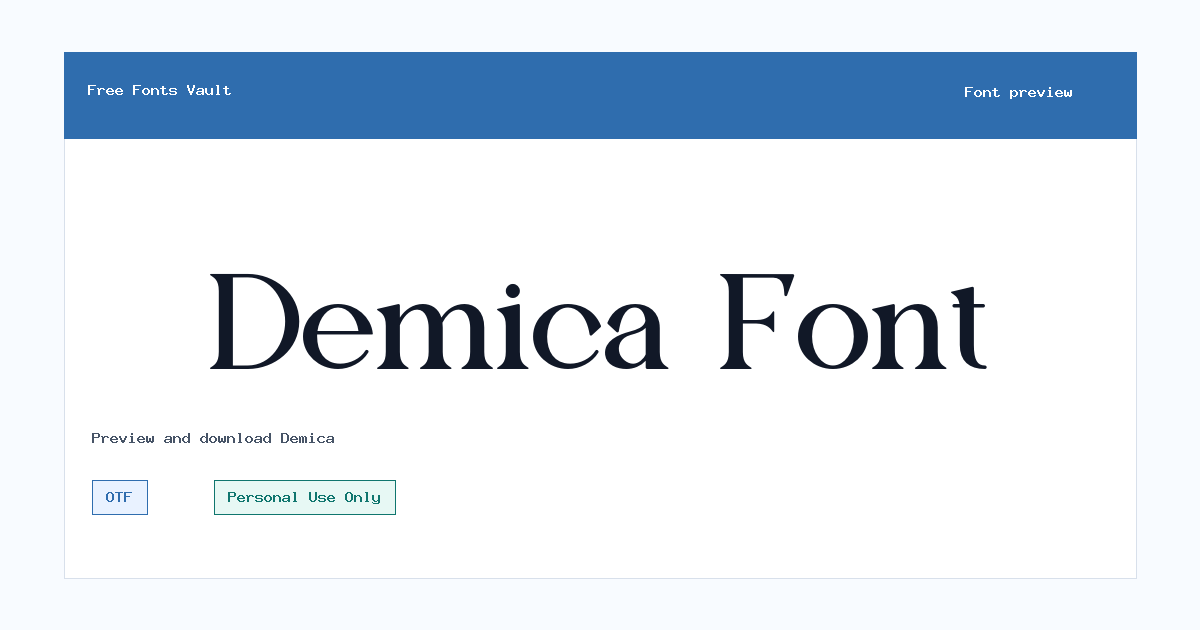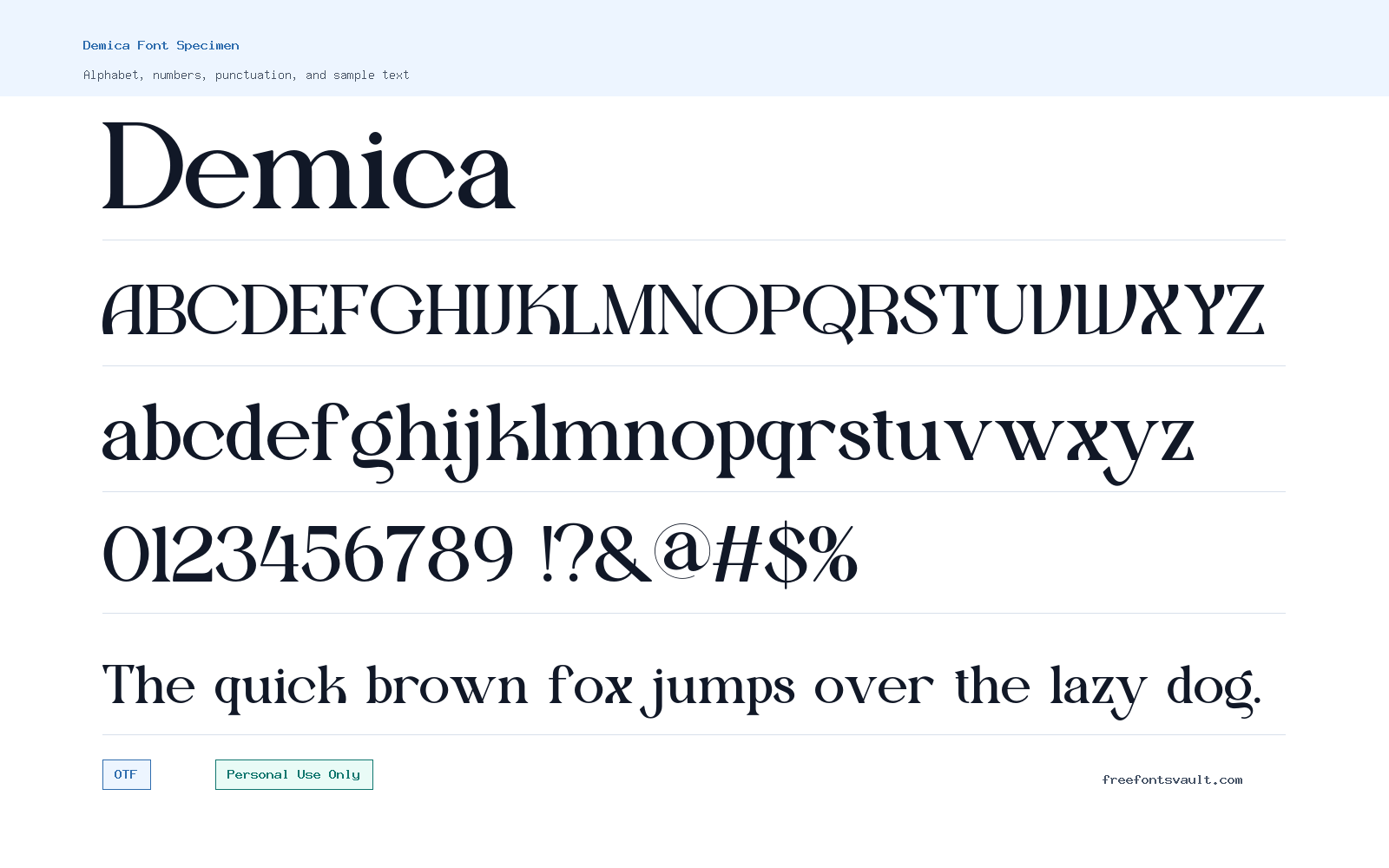
Demica
- Designer ErmediaStudio
Demica font.
Demica is a serif display font by ErmediaStudio, offered in OTF format with a Personal Use Only license. It is a good font to test when you need a composed, elegant look for short text, branding drafts, poster titles, and visual mockups.
About Demica Font
Demica works best as a display face rather than a long-reading text font. Its serif style gives words a more refined and editorial feel, making it useful for names, headings, packaging-style concepts, quote graphics, invitations, and portfolio presentations. Because the available file is a regular-weight OTF font, it is easiest to use in desktop design tools where you can adjust spacing, size, and contrast directly.
Use Demica in the preview box with the exact words you plan to design around. This matters for logo drafts, title cards, and poster work because a display serif can change character depending on letter combinations, capitalization, and spacing. Try your brand name in uppercase, title case, and lowercase if the font supports the characters you need. For web mockups, test it in large headings first and pair it with a plain sans serif for body copy so the layout stays readable.
- Serif display style suited to short, expressive text rather than dense paragraphs.
- Useful for previewing elegant headings, logo concepts, poster titles, and editorial-style graphics.
- Poster titles, quote graphics, invitation headings, and social media artwork.
- Editorial-style headers for portfolios, lookbooks, or presentation slides.
- Packaging concepts and display typography tests that use short words or phrases.
- Web design mockups that need a decorative serif headline paired with simple body text.
Start by testing Demica at larger sizes, especially for names, headings, and short phrases. Increase or reduce letter spacing carefully, because display serifs can look crowded in all caps or when used in small sizes. For practical layouts, pair Demica with a neutral sans serif such as a clean geometric or humanist font for paragraphs, captions, menus, and supporting text. Avoid using it for long body copy unless you have checked readability across screen sizes and print proofs. If you plan to use the font in a logo, template, merchandise design, website, app, ad, or client presentation, clear the commercial license first.
What type of font is Demica?
Demica is presented as a serif font, best suited to display use such as headings, posters, logo drafts, and short design text.
Who designed Demica?
Demica is credited to ErmediaStudio.
Is Demica good for body text?
It is better to treat Demica as a display font. Use it for larger headings and pair it with a simpler font for longer reading text.